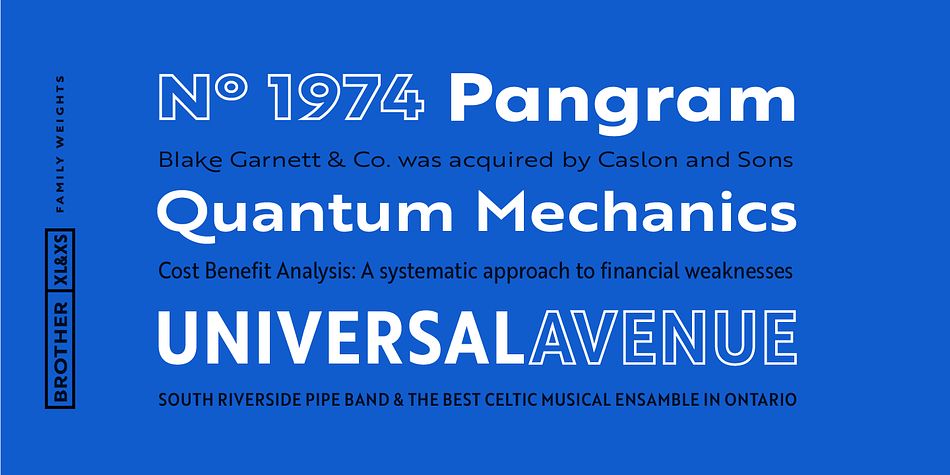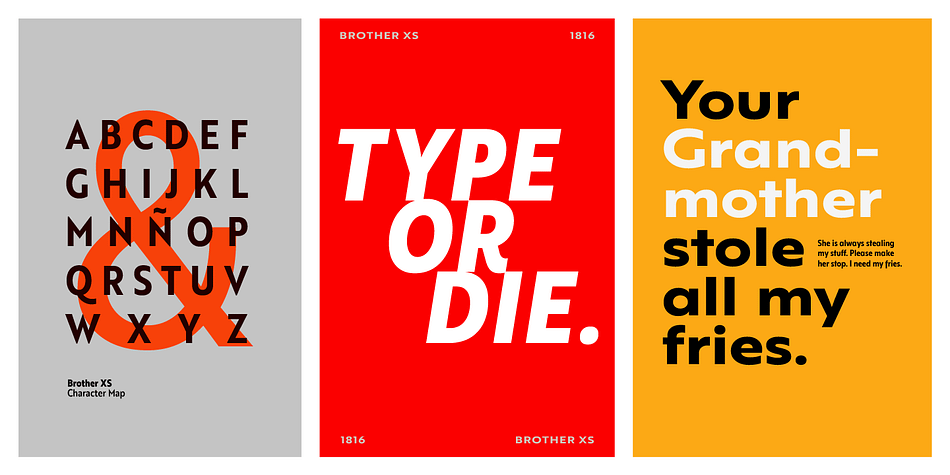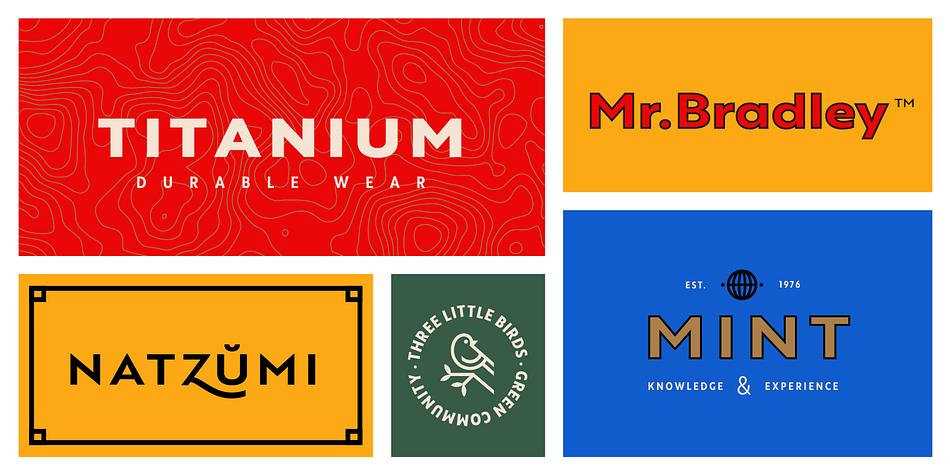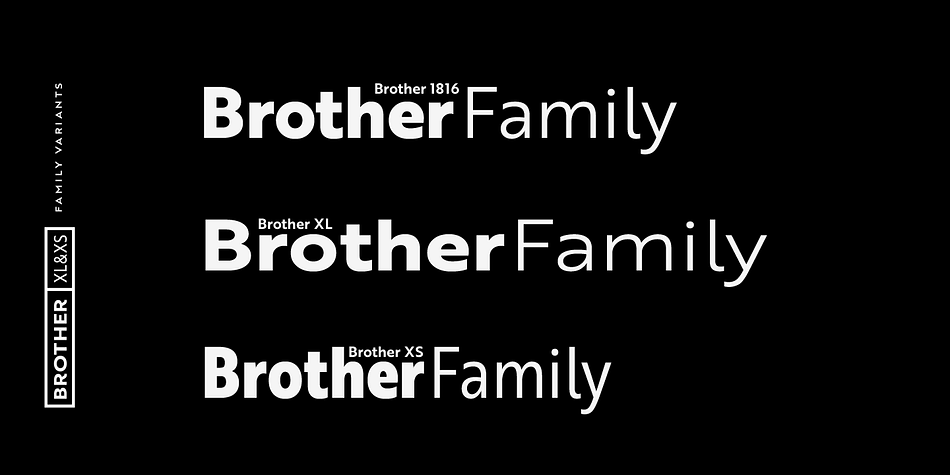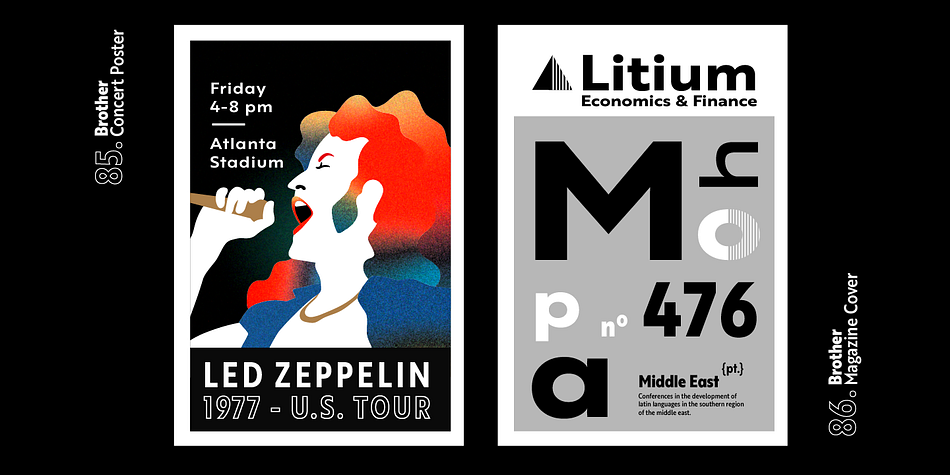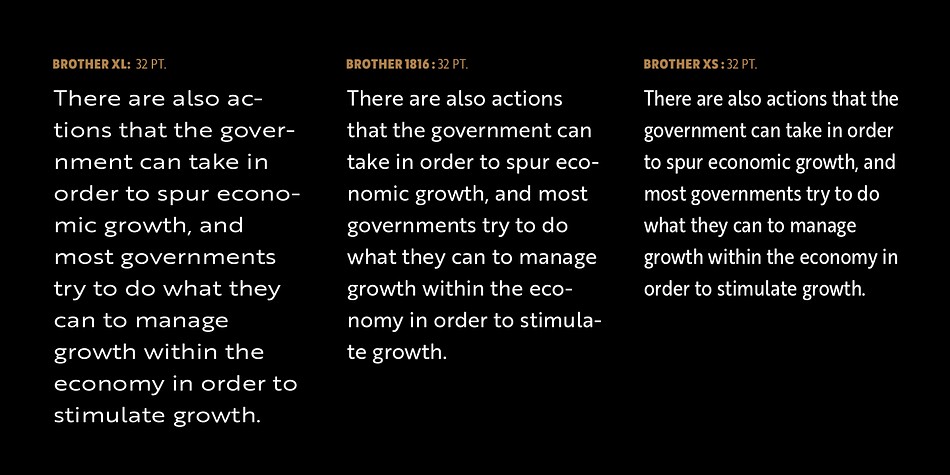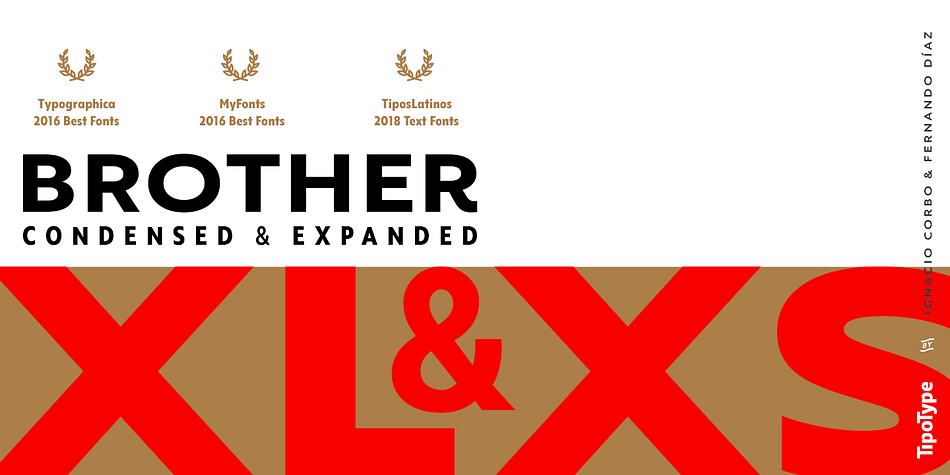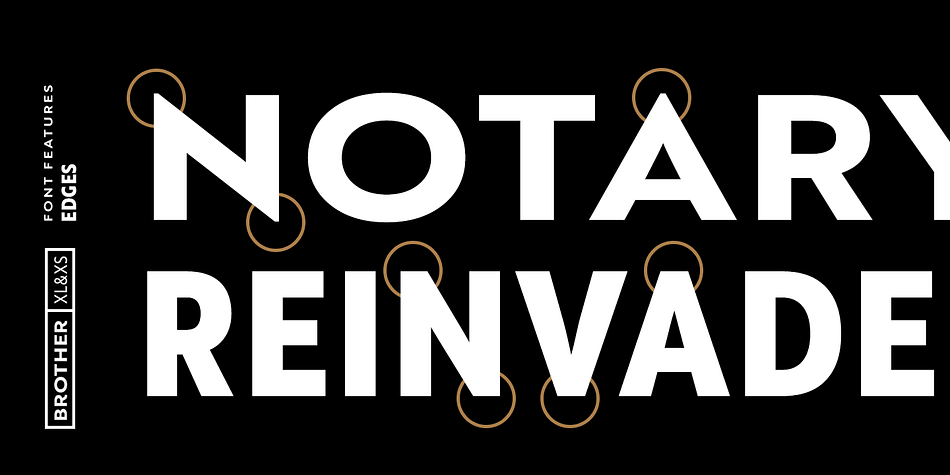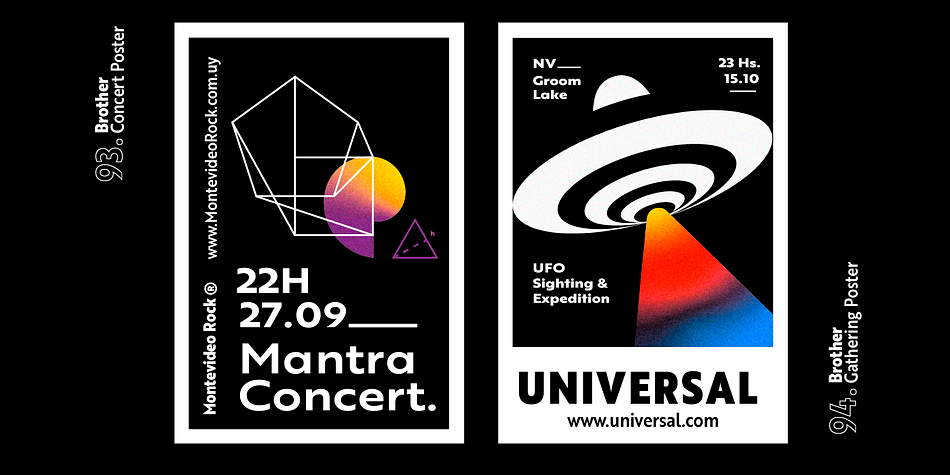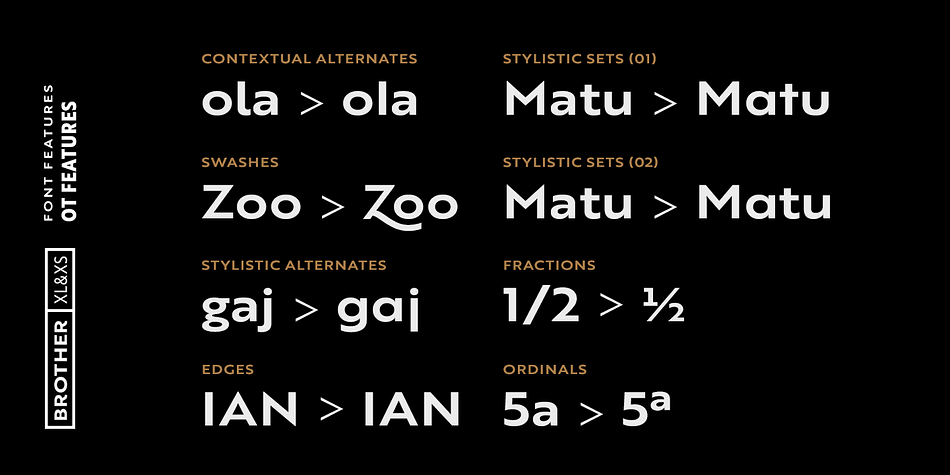
Designed by Fernando Díaz and Ignacio Corbo, Brother XL&XS is a sans serif font family. This typeface has thirty-two styles and was published by TipoType.
Brother XL & XS is an expansion of Brother 1816, one of the best sellers of 2016: myfonts.com/fonts/tipotype/brother-1816
We decided to add new widths to the type system, designing a condensed version (XS) that is perfect for narrow spaces without loosing legibility, and an expanded version (XL) with a lot of character for display uses but without abandoning funcionality. Both typefaces where created to adapt in diverse design languages being able to be “retro” or “modern” making it very flexible and working well in texts or titles, in print or screens.
Brother XL & XS mixies Geometric shapes with Humanistic strokes at the same time. You can choose between a pure geometric or humanistic style, condensed or expanded, or even mix between XS, XL, or its alternate characters to create the feeling that you need for your projects. Its humanistic nature makes it easy to read, legible in small sizes; perfect for branding, editorial and signage.
It has a total of 32 fonts, which are divided into 2 groups: XS (16 condensed weights) & XL (16 expanded weights). Each weight has +460 characters, +20 alternates, angular and straight edges, swashes, fractions, ordinals and much more…. Brother has also been specially designed for web (using hinting instructions), making it work in small and large sizes on different types of screen resolutions.